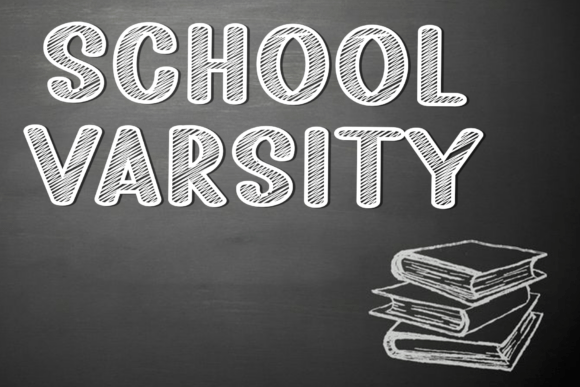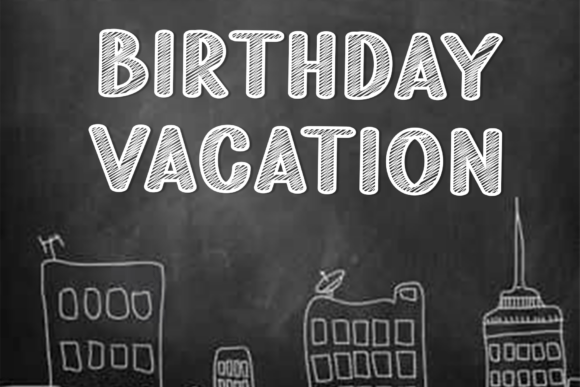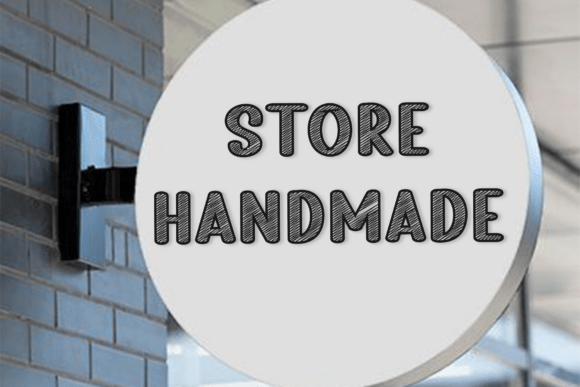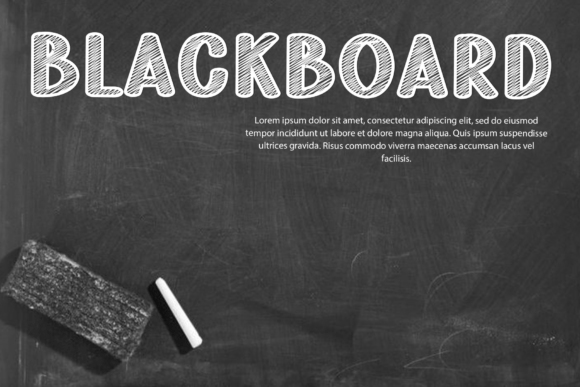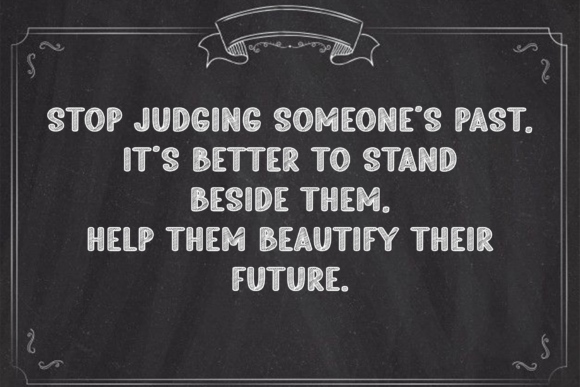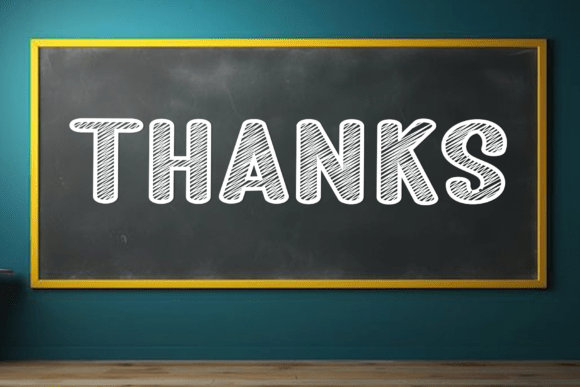
Introduction to Chalk Studio Font
Chalk Studio – Chalk Style Display Font Chalk Studio is a display font inspired by the texture of chalk writing on a blackboard.
The letters are bold, uppercase, and filled with diagonal line shading that mimics the authentic look of chalk strokes This construction gives each glyph a tactile, handcrafted quality that feels both playful and educational.